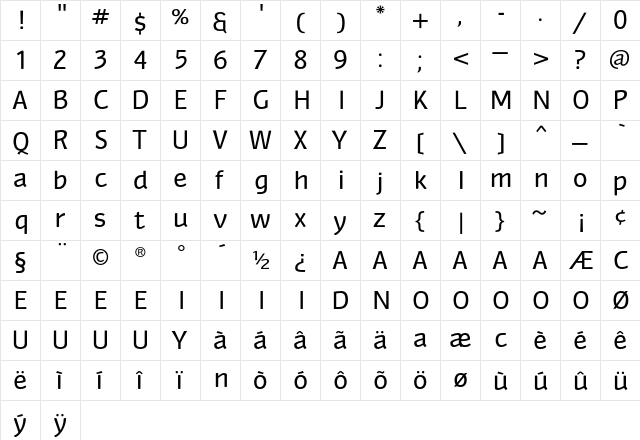
Myndraine Regular
Design Context for Myndraine Typeface
Myndraine takes a measured approach to typography — its balanced proportions and neutral character make it a reliable workhorse for both digital and print work.
Pro Tip: Use Myndraine in both headline and body roles to test its range before committing to a single application.